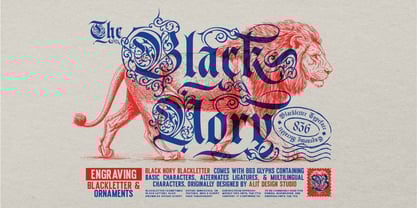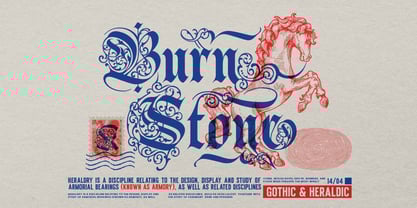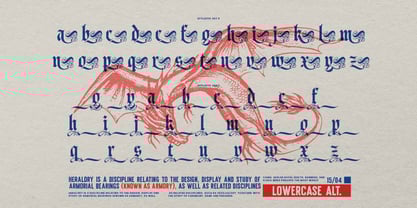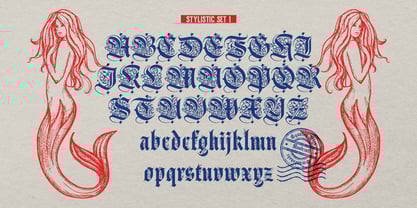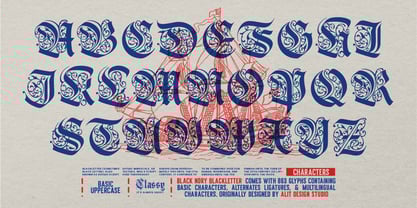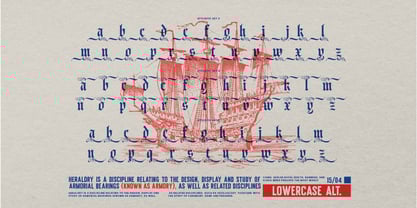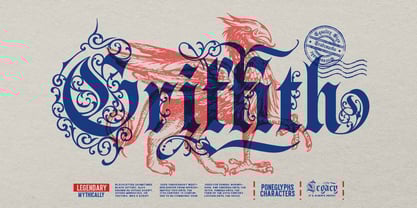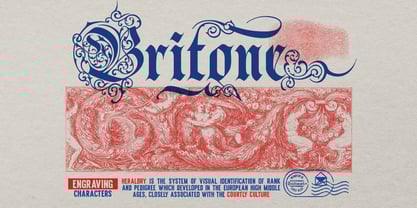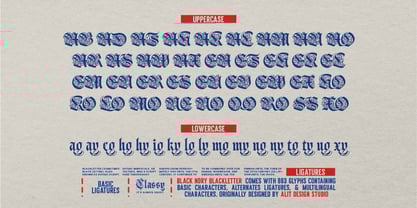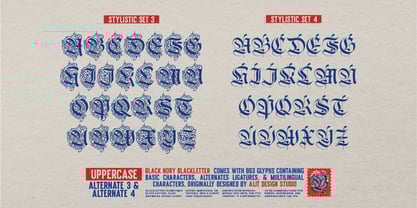
Black Nory
Black Nory — Ornamental Blackletter Typeface
Transport your designs into the world of classic European elegance with Black Nory, a beautifully detailed blackletter typeface that draws inspiration from the majestic scripts of ancient manuscripts, engraved books, and heraldic prints. This typeface is a modern homage to the age of ink-drenched parchment and meticulous craftsmanship, blending bold gothic shapes with delicate ornamental artistry.
🦁 A Fusion of Tradition and Elegance
Black Nory captures the essence of medieval and renaissance-era typography, bringing the look and feel of historical blackletter fonts into contemporary design. Its sharp, structured letterforms are adorned with swirling decorative elements that echo the splendor of illuminated books and royal decrees — perfect for anyone seeking a typeface with an authentic, sophisticated flair.
Whether you're designing a logo, poster, album cover, book title, or packaging that calls for rich historical undertones, Black Nory offers the visual impact of hand-drawn craftsmanship combined with modern versatility.
⚜️ Font Features:
• 863 Glyphs:
An extensive collection of glyphs ensures flexibility for countless combinations and designs, giving you a complete toolkit for stunning typography.
• Alternative Characters:
Each letter is offered in both a clean standard form and an embellished ornamental version. Swap between styles to add variety, detail, or decorative flair — from understated elegance to full-blown artistic statements.
• Ligatures:
Beautiful custom ligatures allow natural connections between letters, preserving the flow and grace of authentic blackletter handwriting.
• Swashes:
Exaggerated and graceful swashes for both uppercase and lowercase provide dramatic flourishes perfect for headers, initials, and monograms.
• Multilingual Support:
Black Nory isn’t bound by language — this font offers extended character coverage for multiple Latin-based languages, allowing your designs to cross borders and eras alike.
📜 A Typeface Steeped in Heritage
Black Nory was carefully designed to echo the textural richness of European blackletter scripts, especially the Gothic Minuscule and Textura styles, widely used from the 12th to the 17th century. Originally seen in religious texts, royal charters, and medieval literature, this style continued to influence print design for centuries, especially in Northern Europe.
With Black Nory, the artistry of this period is reborn for modern designers — pairing a historical heart with digital precision.
💼 Designed By: Originally crafted with passion and precision by ALIT Design Studio, Black Nory is more than a typeface — it’s a storytelling tool that connects the past to the present.
Bring the charm of ancient ink, ornate scriptwork, and vintage elegance into your next creative project with Black Nory — a blackletter font where every letter tells a story.